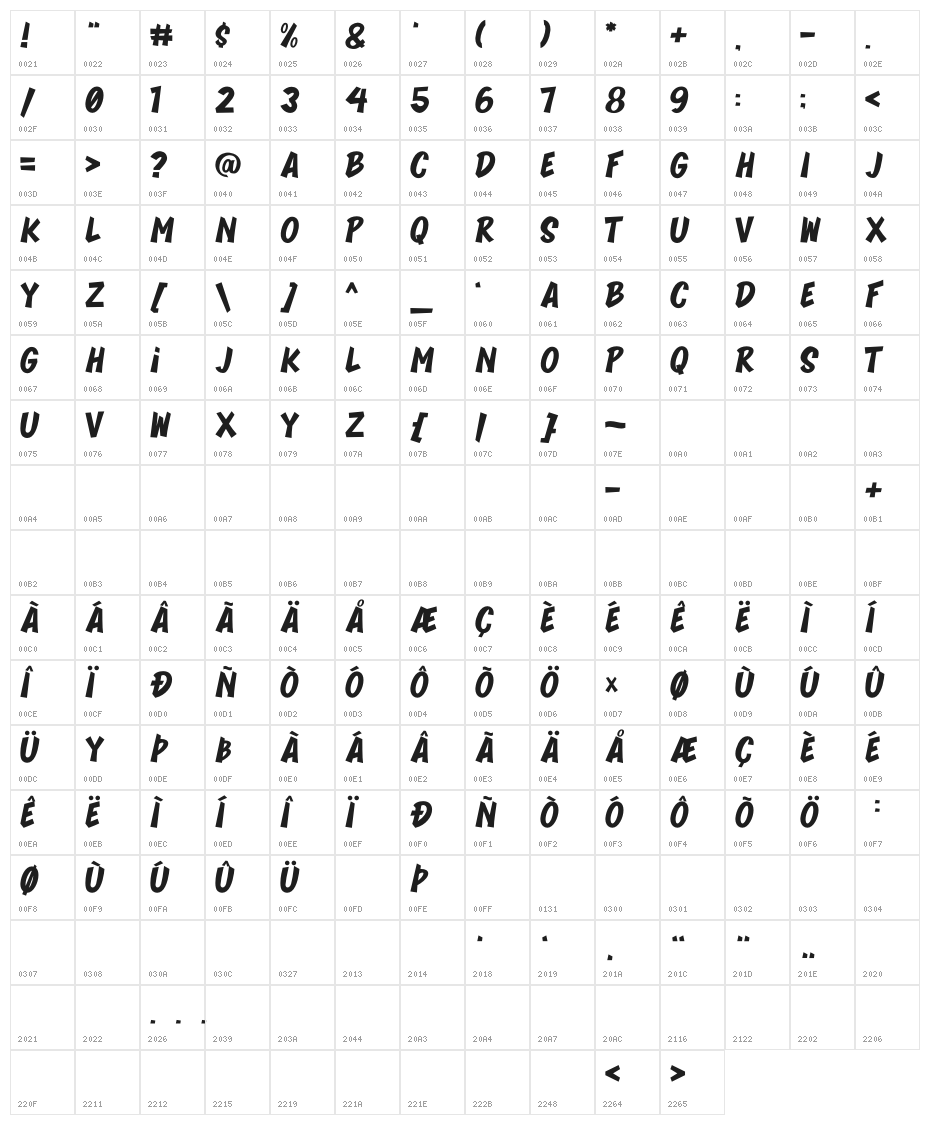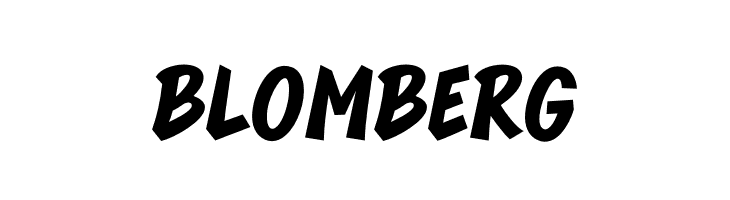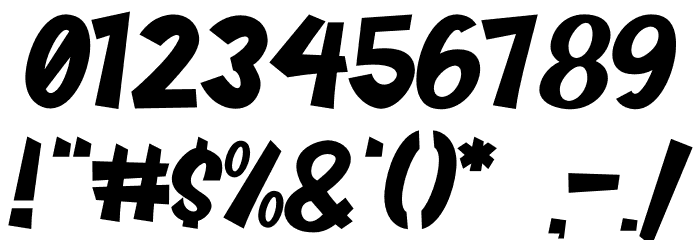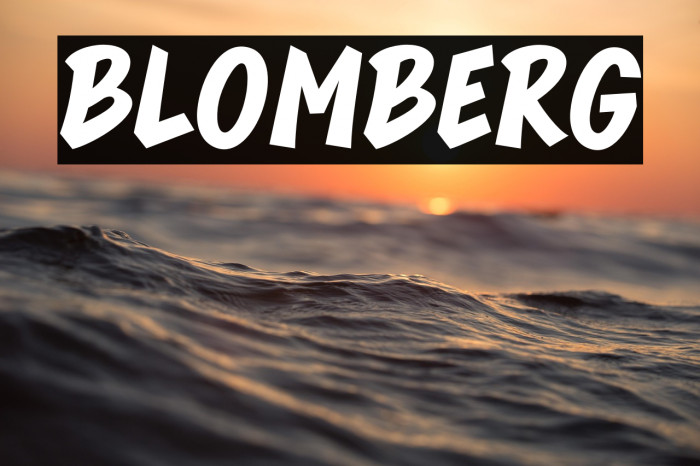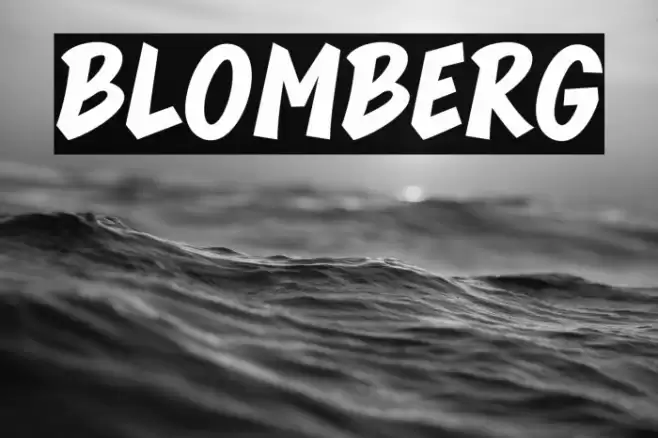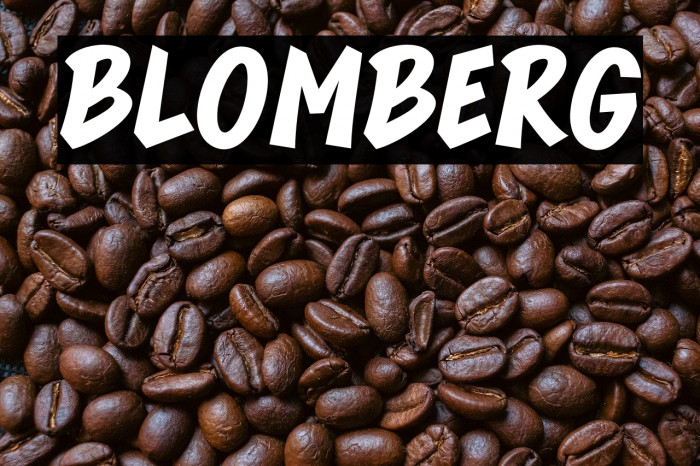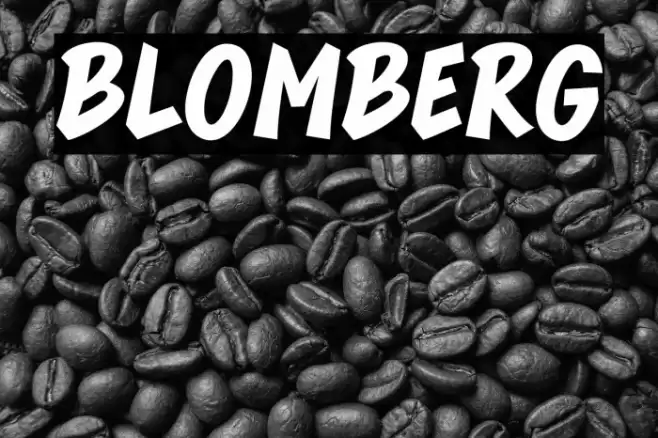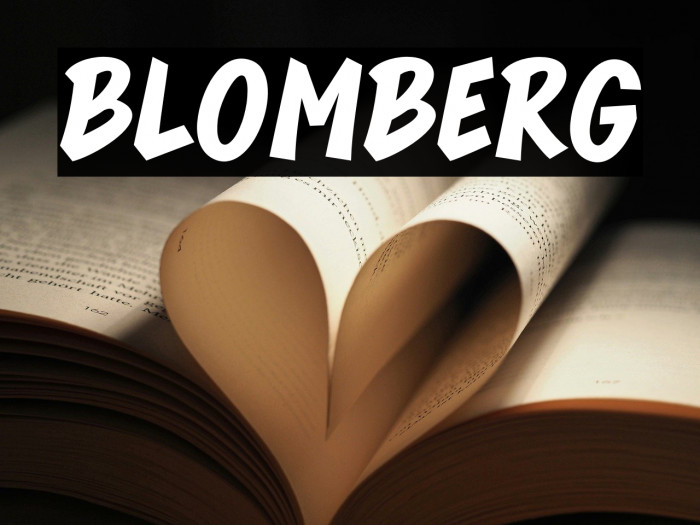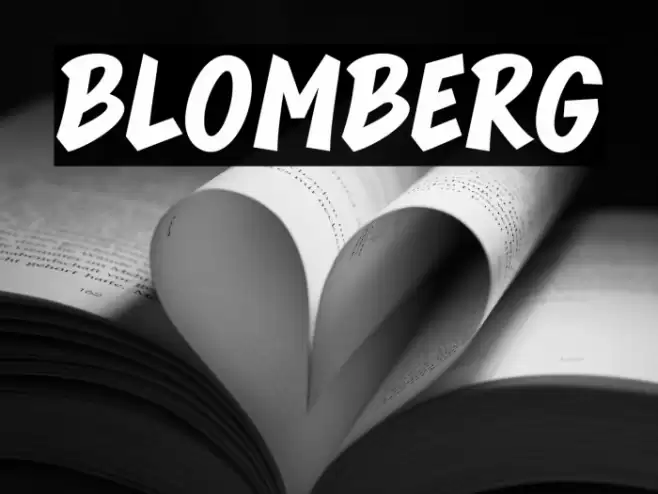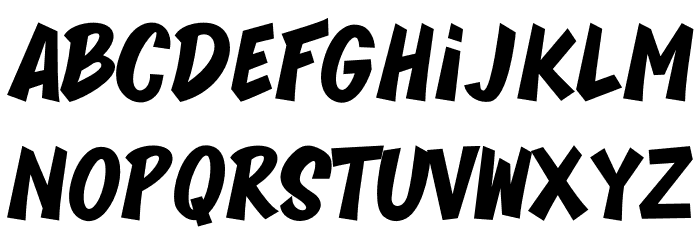
BLOMBERG Font
BLOMBERG Description
This font features a bold and dynamic style with a playful, energetic vibe. The characters are slightly slanted, giving a sense of movement and excitement. The strokes are thick and consistent, providing a strong visual impact. The uppercase and lowercase letters maintain a cohesive look, while the numbers and special characters are designed to match the overall aesthetic. This font is ideal for projects that require a lively and attention-grabbing typeface.
| Overall Style | Playful, Energetic |
| Proposed Projects | Perfect for comic book titles, playful branding, children's book covers, or any project needing a fun and lively typeface. |